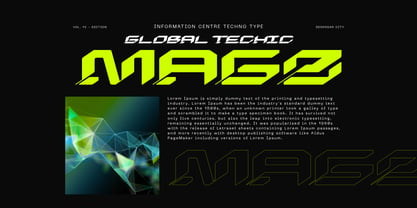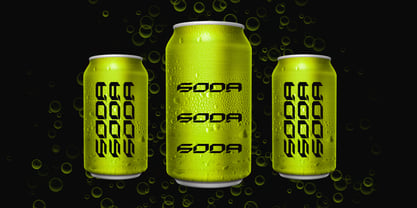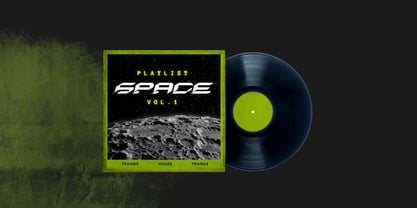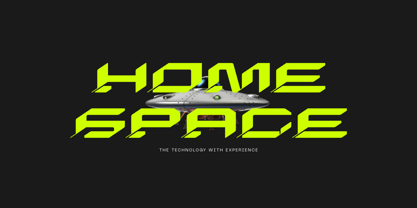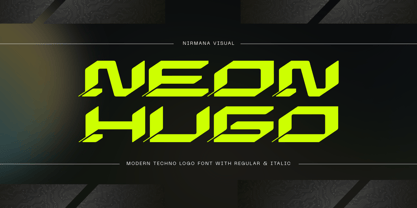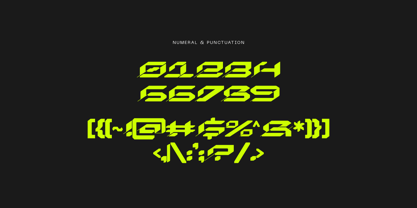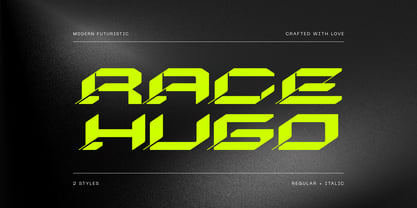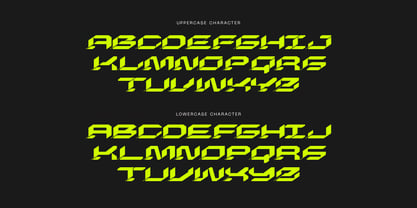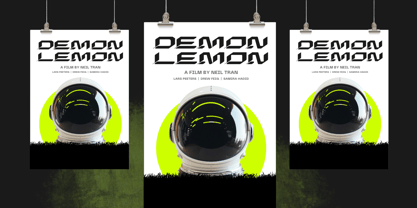
Race Hugo
by Nirmana Visual
Race Hugo is a bold techno-modern font designed for futuristic branding and dynamic visuals. Featuring sharp geometric lines and sleek curves, it delivers a powerful, high-tech aesthetic ideal for logos, headlines, and digital interfaces. Available in Regular and Italic styles, Race Hugo combines precision with elegance, making it perfect for gaming, sci-fi projects, and cutting-edge design concepts. Elevate your creative work with this modern typeface.